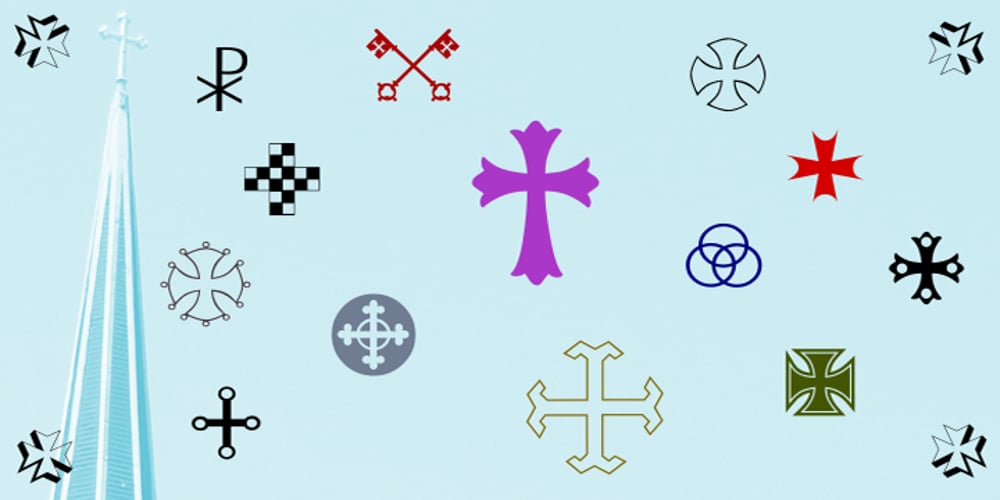
Cruxially Font Family was designed by Shane Brandes and published by Proportional Lime. Cruxially contains 1 styles and family package options. Religious symbols are endless much like that amazing variety of types of religion. This font contains nearly 500 glyphs. Many are crosses, but there are other treasures besides. 50% of the profits from this font will be donated to the restoration fund of the historic Beckerath Organ at Trinity Lutheran in Cleveland, Ohio which radically changed the course of organ building in the western hemisphere.